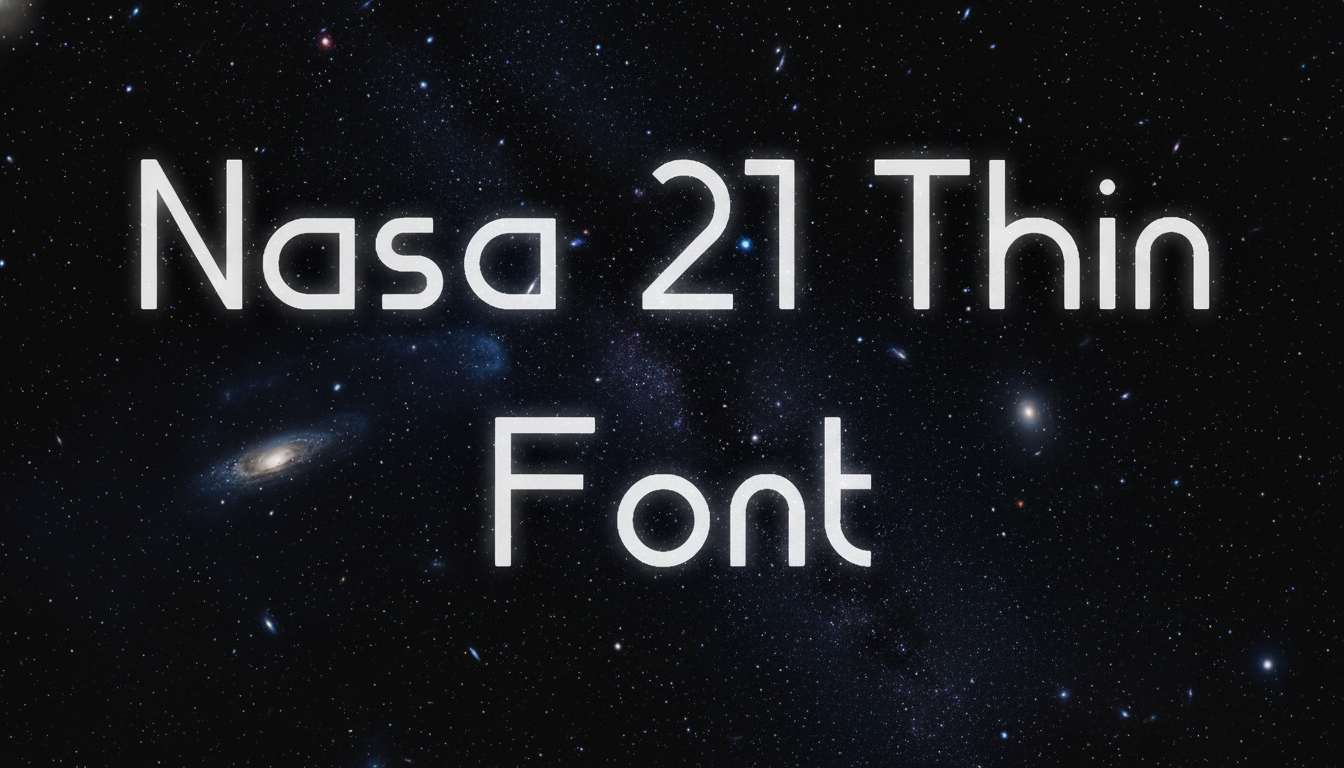
Nasa 21 Font
Nasa 21 is a techno font that works well for gaming logos, tech branding and futuristic posters. The designer is Leonhard Katschner.
It comes in one style, Regular, with 172 glyphs.
You can type every uppercase and lowercase letter from A to Z, plus the digits 0–9. Common marks like &, !, ? and @ are included as well. It has the accented letters you need for Spanish, French, German, Portuguese and Italian, too.